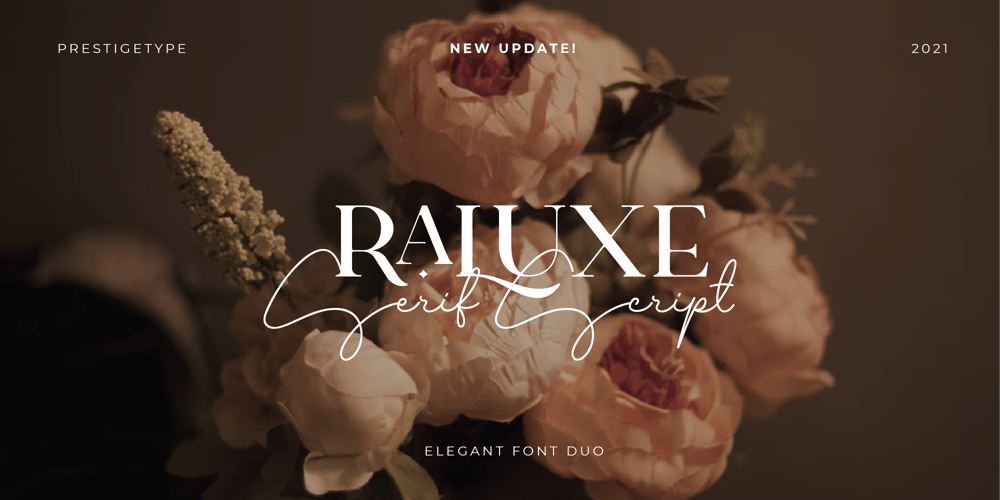
Raluxe
Raluxe font
Raluxe Font Family was designed by Mohamad Ridwan and published by Prestigetype Studio. Raluxe contains 7 styles and family package options. Need a font for a brand and personal visual identity? Introducing, our outstanding premium font duo, Raluxe; consisting of a ligature-rich Serif and elegant Script. These fonts are designed to pair harmoniously, specifically use for brand visual identities and personal identities such as logos, headlines, titles, labels, stationery, magazine, fashion industry, social media banner, business cards, or any advertising purposes. This typeface has been made carefully to make sure it’s premium quality.Features : Numbers and Punctuation Multilingual Ligatures Alternates OpenType features *You can only access the ligatures and alternates feature in uppercaseWe highly recommend using a program that supports OpenType features and Glyphs panels like many of Adobe apps and Corel Draw, so you can see and access all Glyph variations.We hope you enjoy our font – please do let us know by emailing us at info@prestigetype.com or prestigetypestudio@gmail.com if you need something!